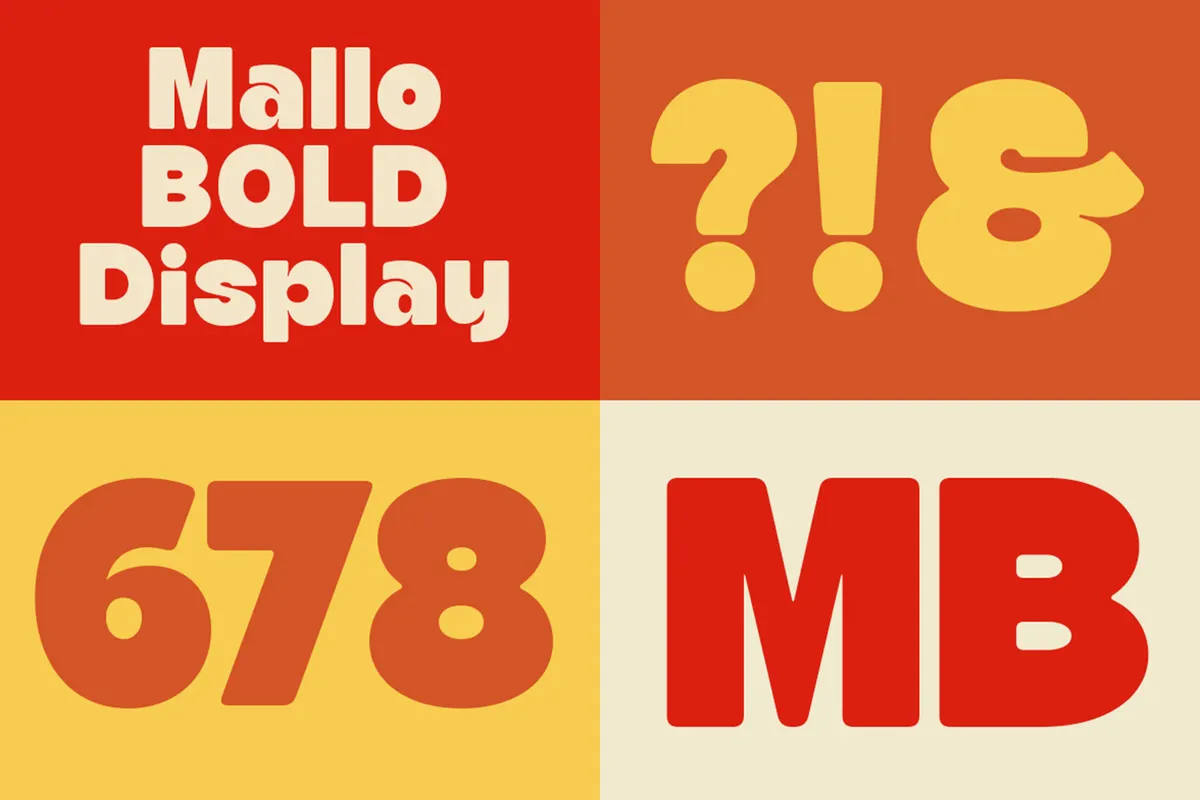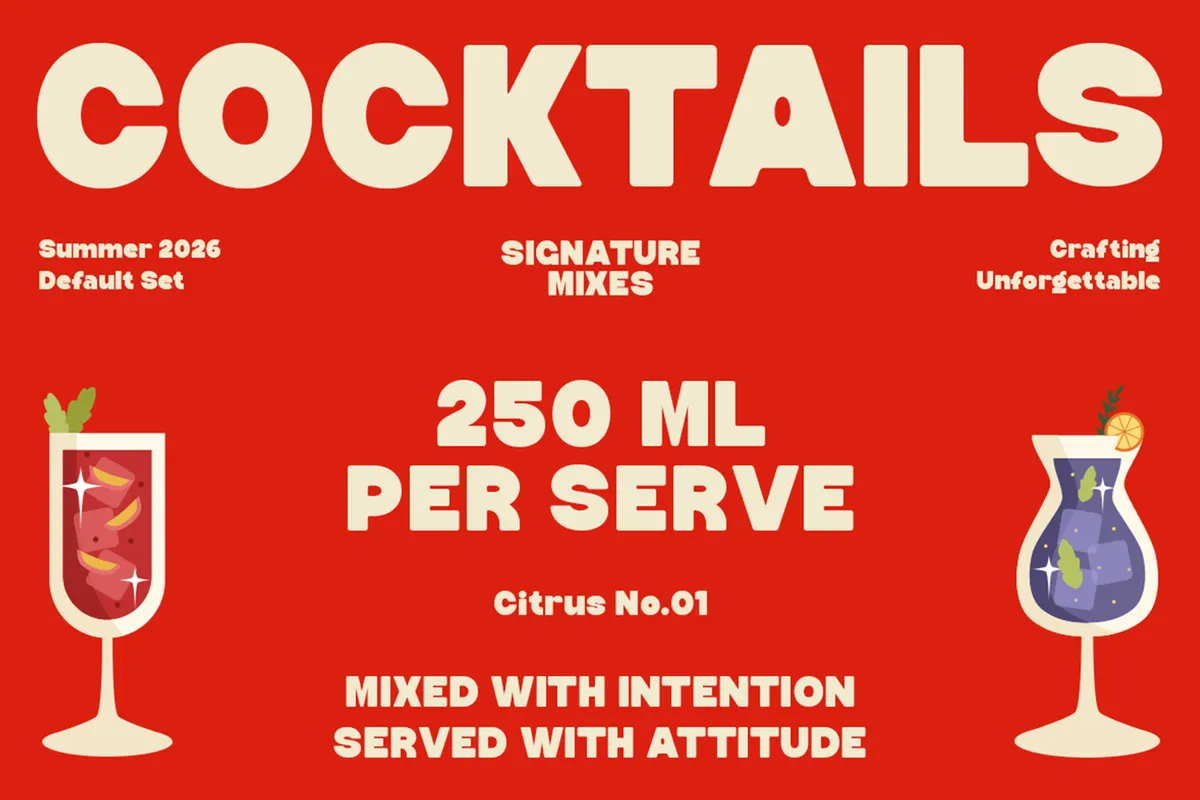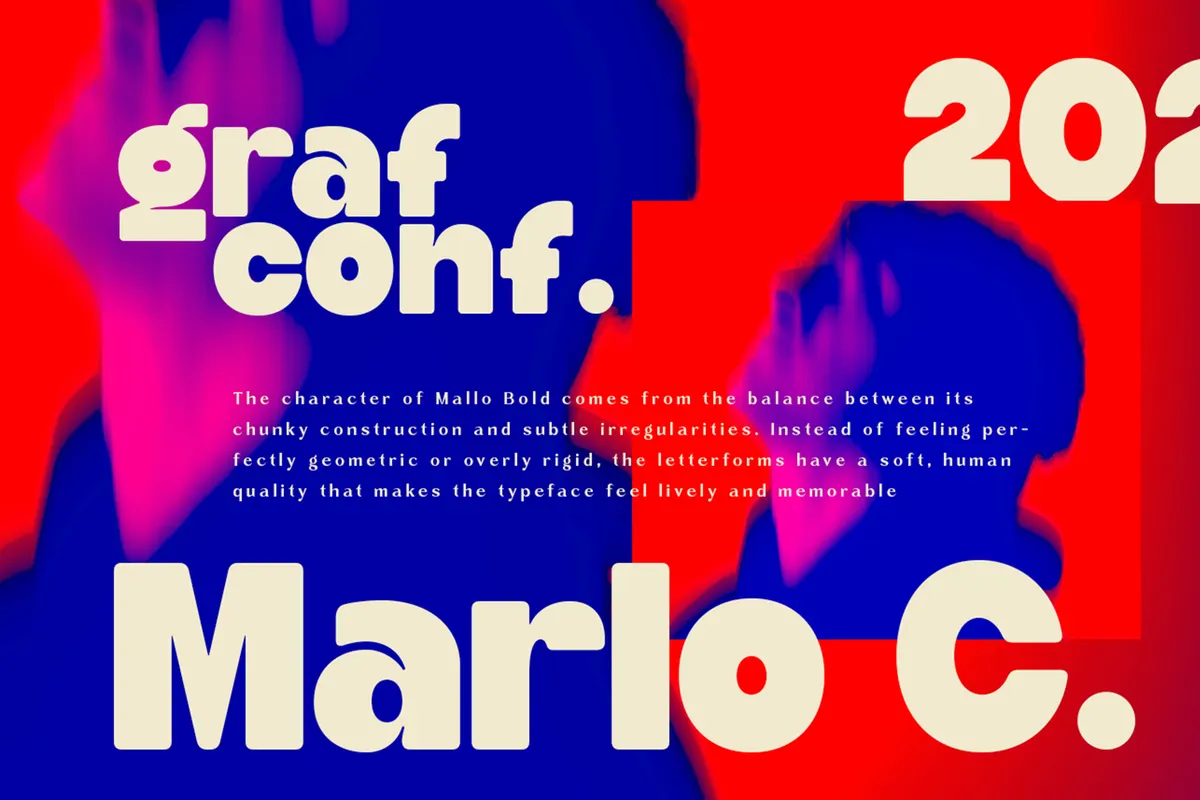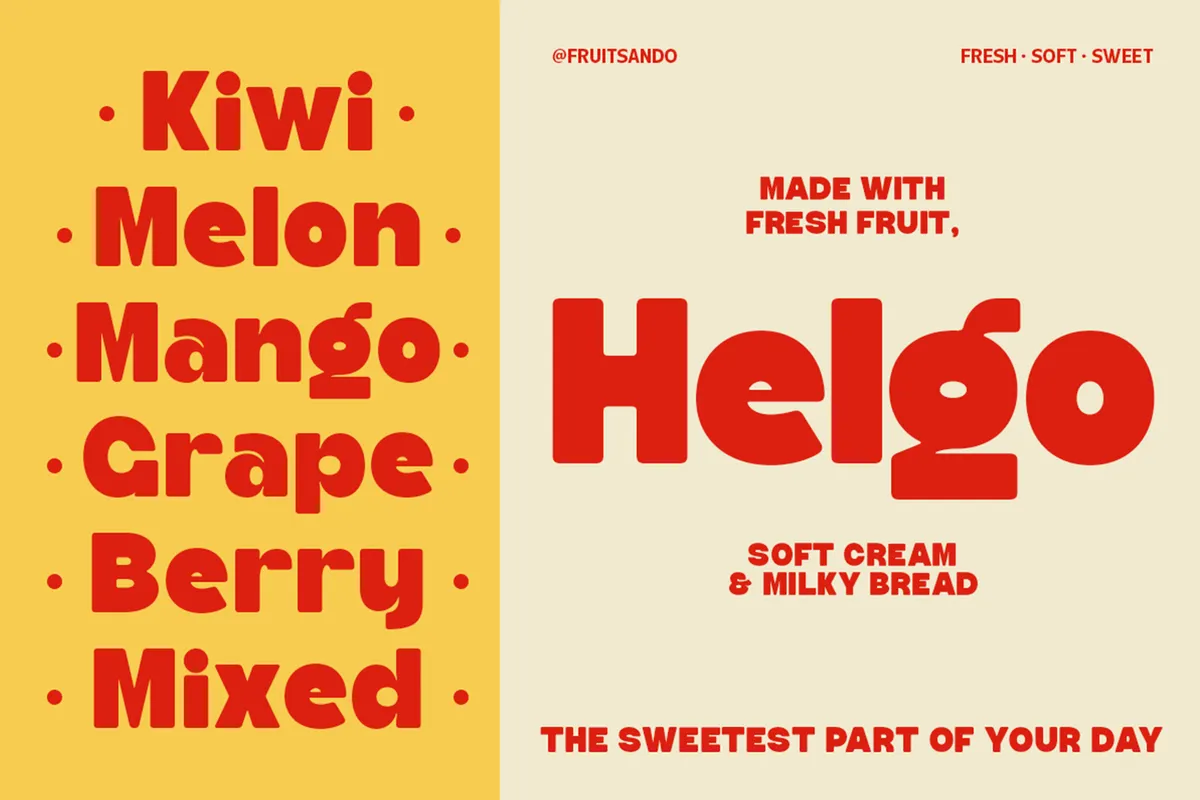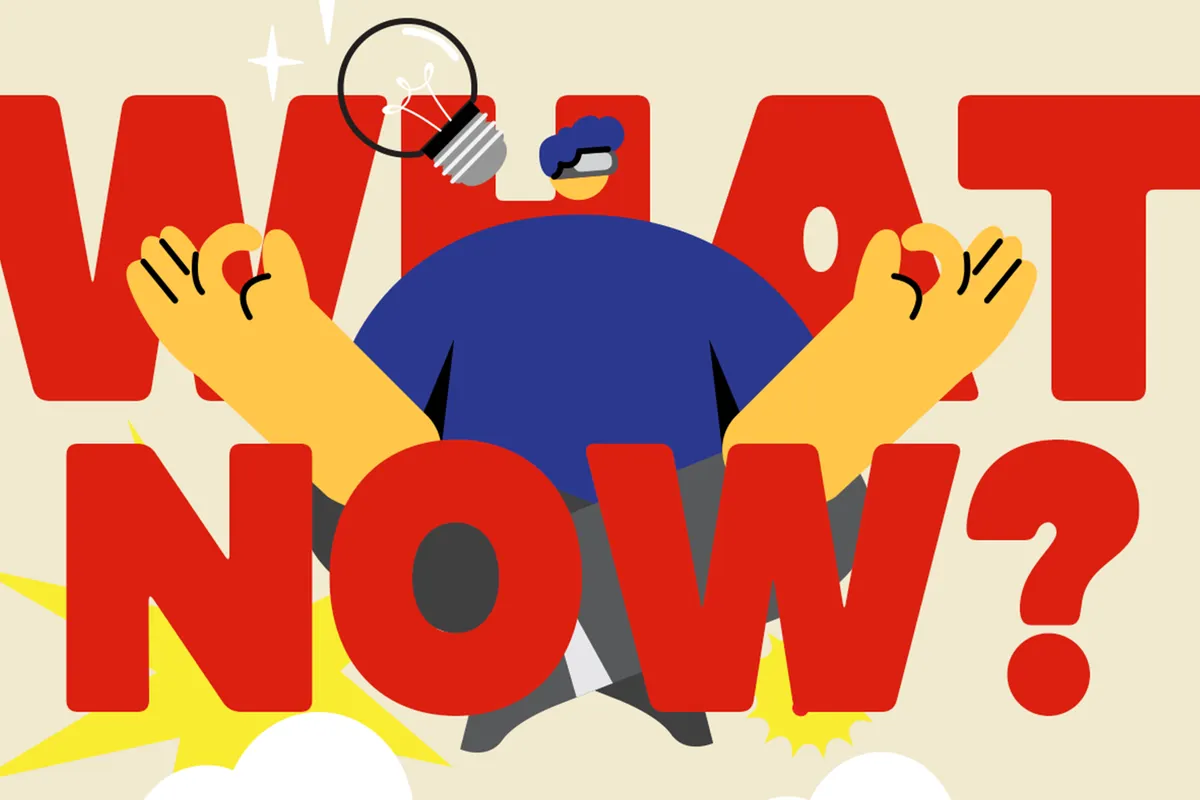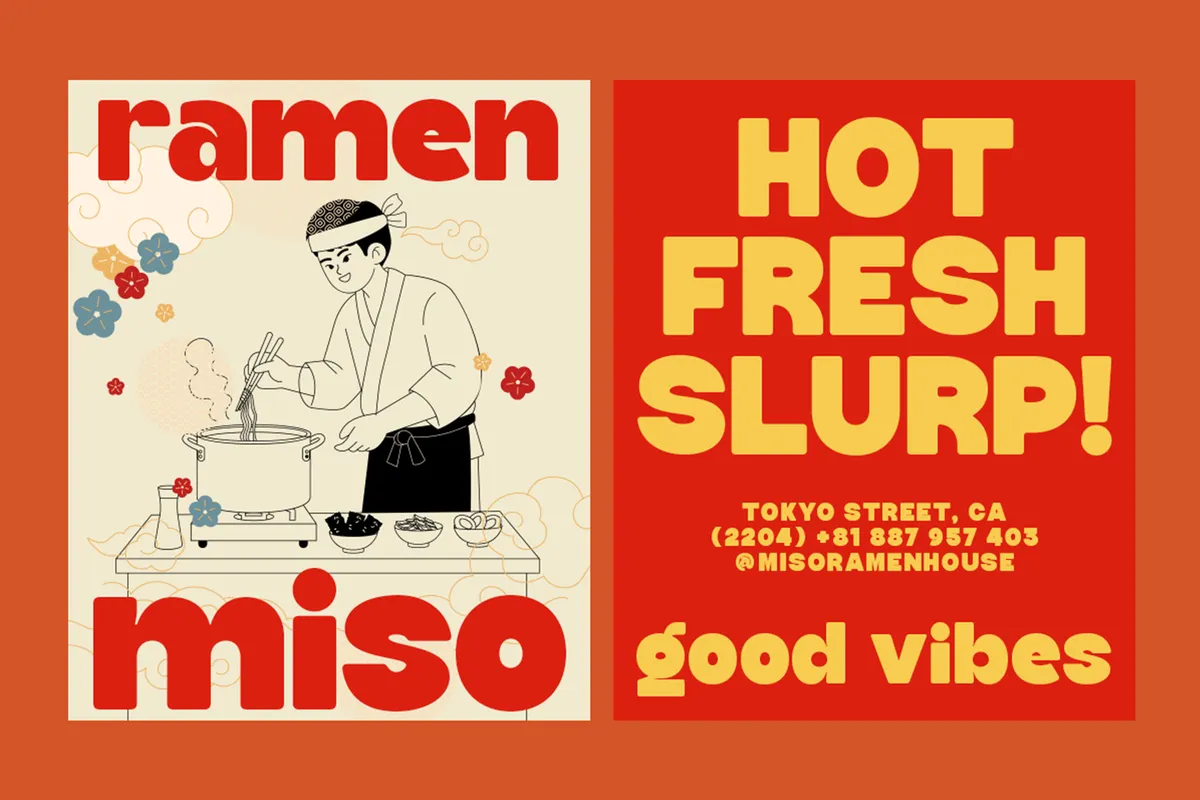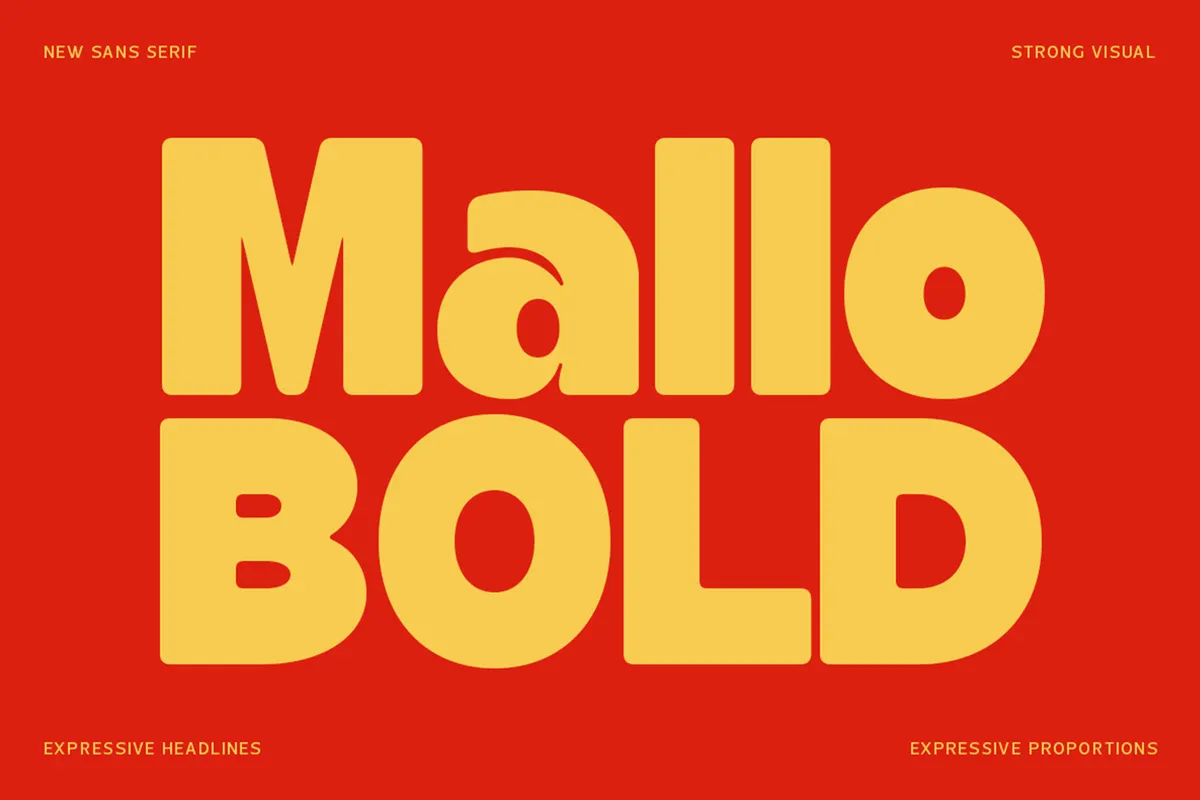
Mallo Bold - Rounded Sans Serif Font
Oblique
Mallo Bold rounds every stroke into thick, bouncy shapes, with soft curves standing in for sharp corners across the whole alphabet. An oblique companion leans the same construction for secondary lines and accents.
Ligatures smooth fi and fl pairs, and fraction and superscript figures round out the technical side. Use it for logos, branding, packaging, posters, menus, labels, and food and beverage graphics that want a friendly, chunky voice.
- 2 styles: Regular and Oblique;
- Uppercase & lowercase;
- Numerals, punctuation & symbols;
- Ligatures, fractions & superscript figures;